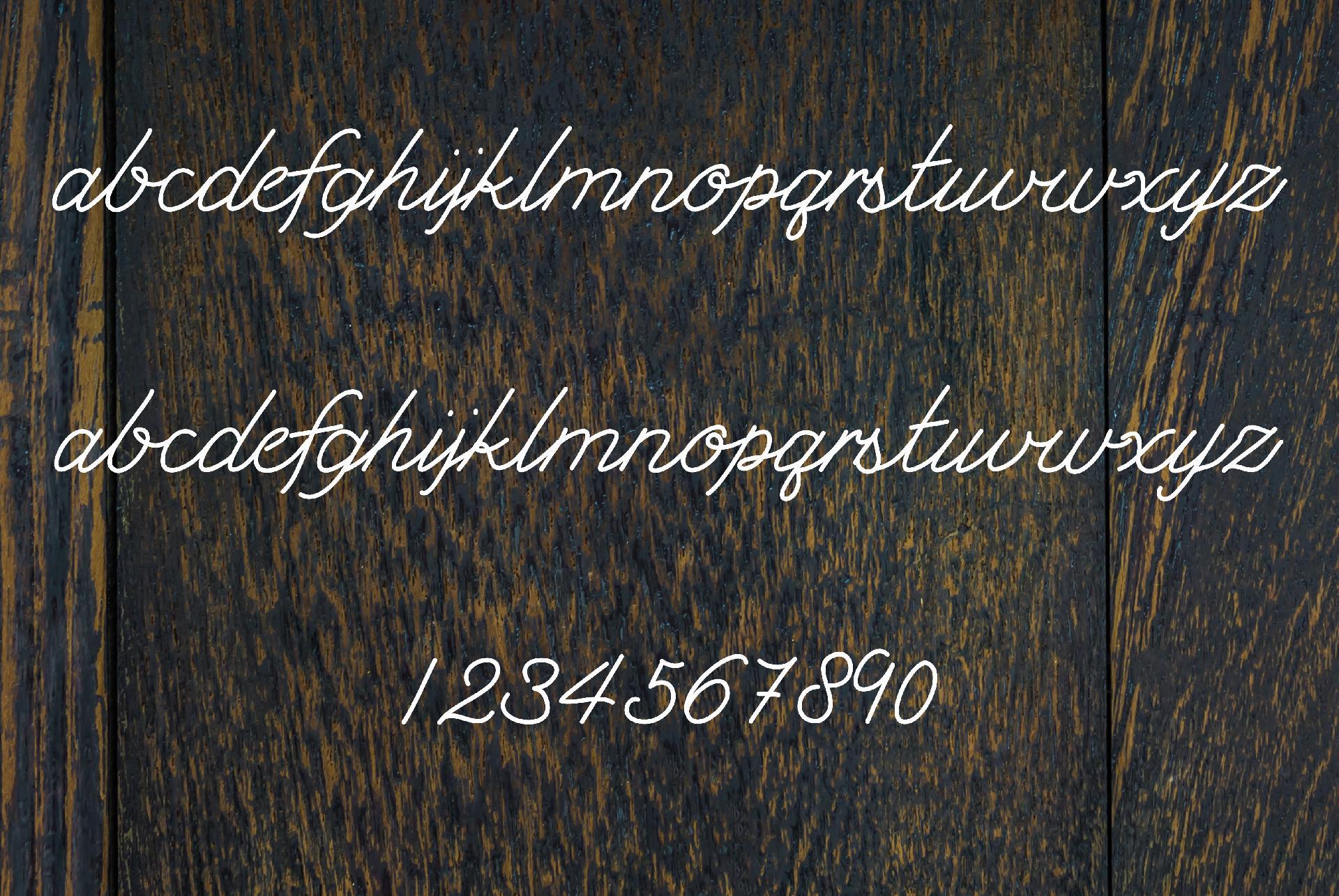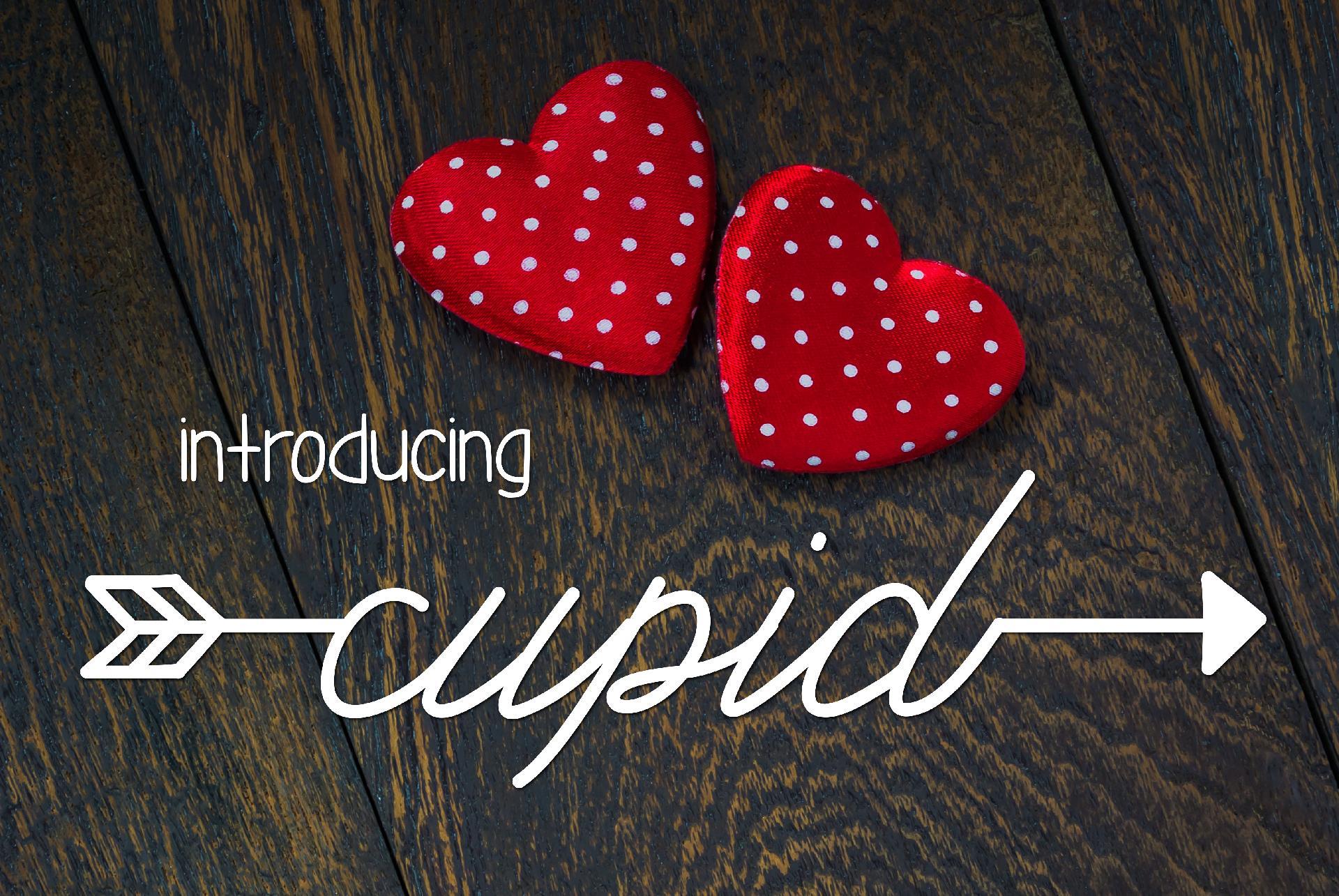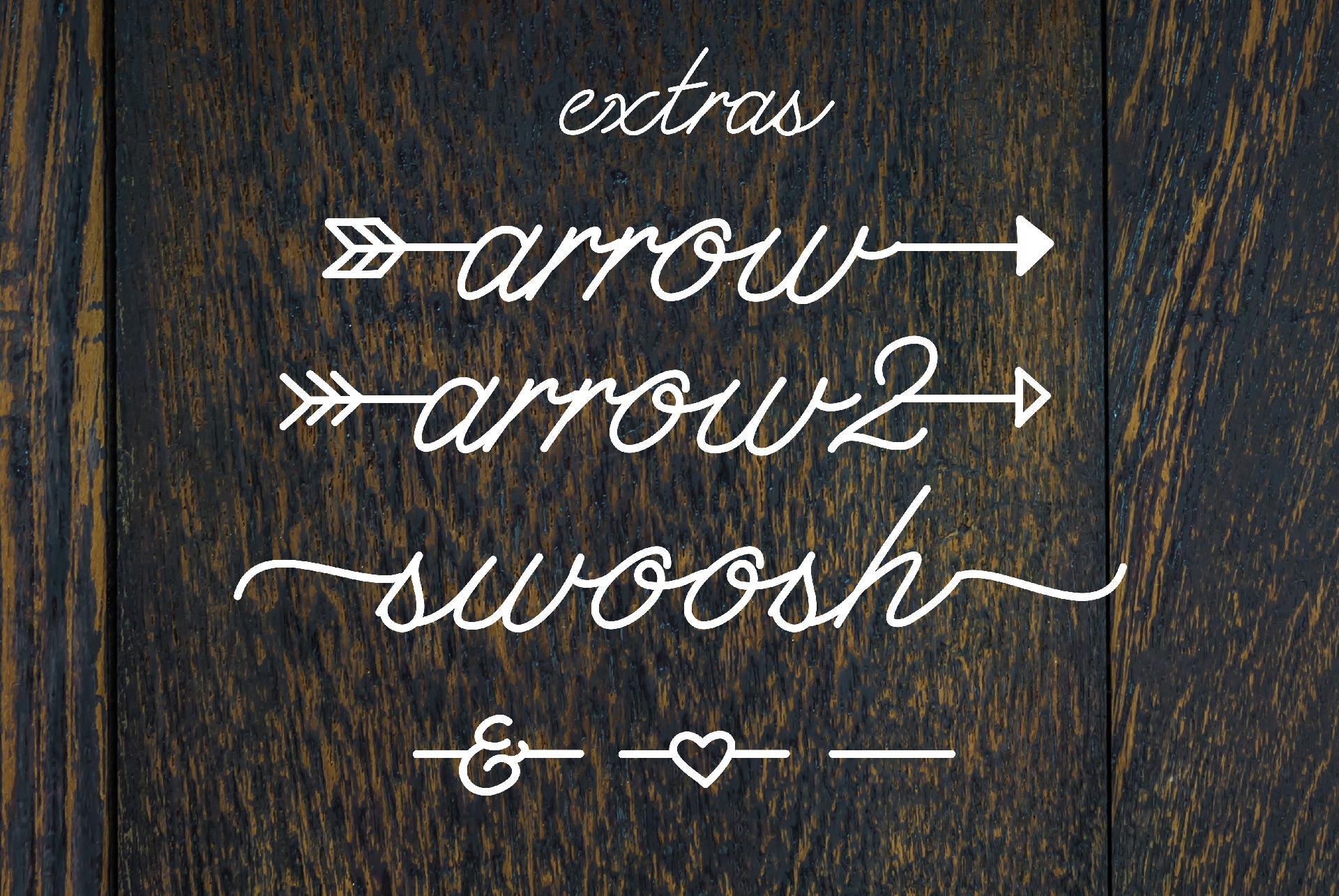
HomeScript FontsCupid Script Fonts Cupid FacebookXPinterestWhatsApp 1 of 3 ... ... ... About Cupid Cupid is perfect to add to any project needing a little love. DOWNLOAD NOW People also explored Bardyne Font Debacle Ballpoint Font Valentine Times Font Beverly Switch Font Mittchely Font Happy Birthday Font Daisy Land Font Karmela 238 0 TagsCupid Previous articleCrinkleNext articleSailmaker Script A Modern Minimalistic Hand Lettered Font Fonts for Cricut, Fonts for Silhouette, Fonts for Procreate, Alphabet, Calligraphy, Wedding Font LEAVE A REPLY Cancel reply Comment: Please enter your comment! Name:* Please enter your name here Email:* You have entered an incorrect email address! Please enter your email address here Website: Save my name, email, and website in this browser for the next time I comment. Personal Use Free Ernesthuge Personal Use Free Read more about this font Bakk Trieng Personal Use Free Read more about this font Ontel Personal Use Free Read more about this font Tanpax Personal Use Free Read more about this font BLOG How to Cut Any Font on Cricut: Convert a Font to SVG (Free) Turn any font into a clean SVG so it cuts crisp on Cricut - a quick 3-step workflow using a free font-to-SVG tool. Elegant Wedding Invitation Fonts – Handwritten & Script Fonts Best Fonts for YouTube Videos: Make Your Thumbnails Stand Out Best Fonts for T-Shirt Design – Top 2025 Picks